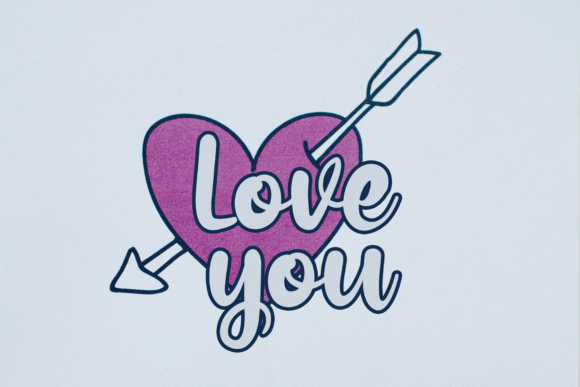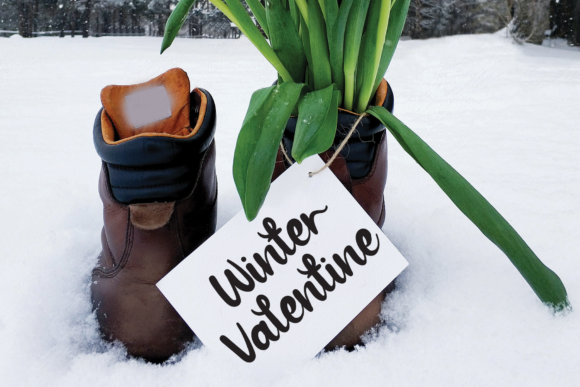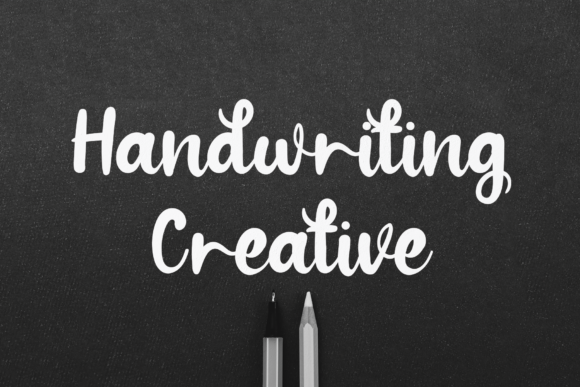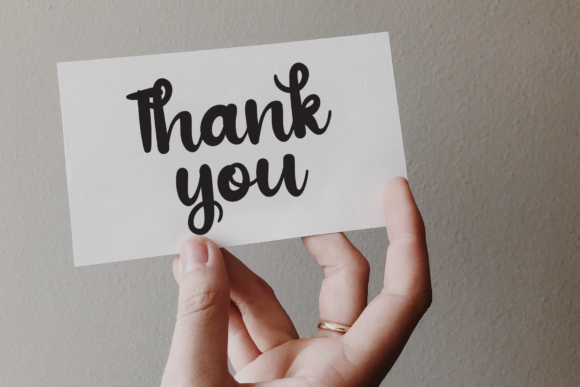
Unleashing Whimsy in Your Designs
Remember that moment when you stumbled upon the perfect font, and your entire design project just clicked? For many creatives, that ‘aha’ moment is what drives their passion and inspires them to push boundaries. As designers, we’re always on the lookout for the perfect font to elevate our work, and that’s where Baby Love Font comes in – a charming, chunky handwritten font that adds a touch of sweetness to any design.
With its bold, playful strokes, Baby Love Font is the perfect addition to any project that needs a dash of whimsy. Whether you’re crafting a nursery decor, creating a social media campaign, or designing a wedding invitation, this font will make your designs come alive. Its value lies in its versatility and ability to add a personal touch to any project, making it a must-have for designers who want to stand out from the crowd.
Baby Love Font Key Features
- Unique Characteristics: The font features a playful, handwritten style with rounded edges and a cursive feel, making it perfect for baby-related designs and children’s products
- Font Weight: Offers various font weights, from light to bold, allowing designers to achieve the desired level of emphasis and contrast
Baby Love Font Review
As a designer, I was excited to dive into the “Baby Love Font” and see what it had to offer. Here’s my honest review.
- ✨ The font’s playful and whimsical feel is perfect for child-related projects, nursery decor, or any design that needs a touch of sweetness.
- ✨ The font is highly legible, even at smaller sizes, making it ideal for use in invitations, signage, or other applications where text needs to be clear.
- ✨ The font comes in a variety of weights and styles, offering flexibility for designers to customize their projects.
- ⚠️ The font’s design can feel a bit over-the-top or cutesy for some projects, which may limit its use in more serious or professional designs.
- ⚠️ The font may not be the best choice for projects that require a more modern or edgy look.
- ⚠️ Some users may find the font’s rounded edges and curves to be a bit too rounded, making it difficult to read in certain contexts.
The “Baby Love Font” is a solid choice for designers working on child-related projects or those who want to add a touch of whimsy to their designs. While it may not be the best fit for every project, its playful feel and high legibility make it a great addition to any designer’s toolkit.
The Baby Love Font is perfect for creating cute and playful designs, such as:
– Baby shower invitations
– Children’s party decorations
– Nursery wall art
– Personalized baby gifts
Q: What is the character set and language support for the Baby Love Font?
The Baby Love Font includes a wide range of characters, including uppercase and lowercase letters, numbers, and punctuation marks. It supports Latin-based languages, including English, Spanish, French, and many others. However, it does not support non-Latin scripts or complex languages that require special characters.